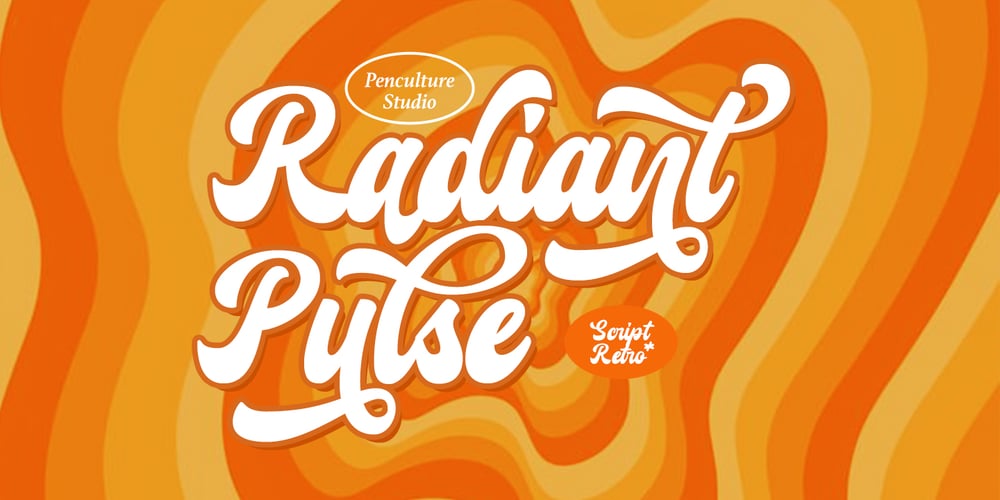
Radiant Pulse Font Family was designed by Revo Farsiky and published by Pen Culture. Radiant Pulse contains 1 styles and family package options. Radiant Pulse is a vibrant retro bold script font that commands attention and radiates charm. With its stunning stylistic alternates and meticulously crafted ligatures, this font offers endless possibilities for creating unique, dynamic designs.Perfect for logos, posters, branding, packaging, and more, Radiant Pulse combines bold, nostalgic energy with a modern edge, making it an excellent choice for standout typography.I really hope you enjoy it – please do let me know what you think, comments & likes are always hugely welcomed and appreciated. More importantly, please don’t hesitate to drop me a message if you have any issues or queries.Thank you